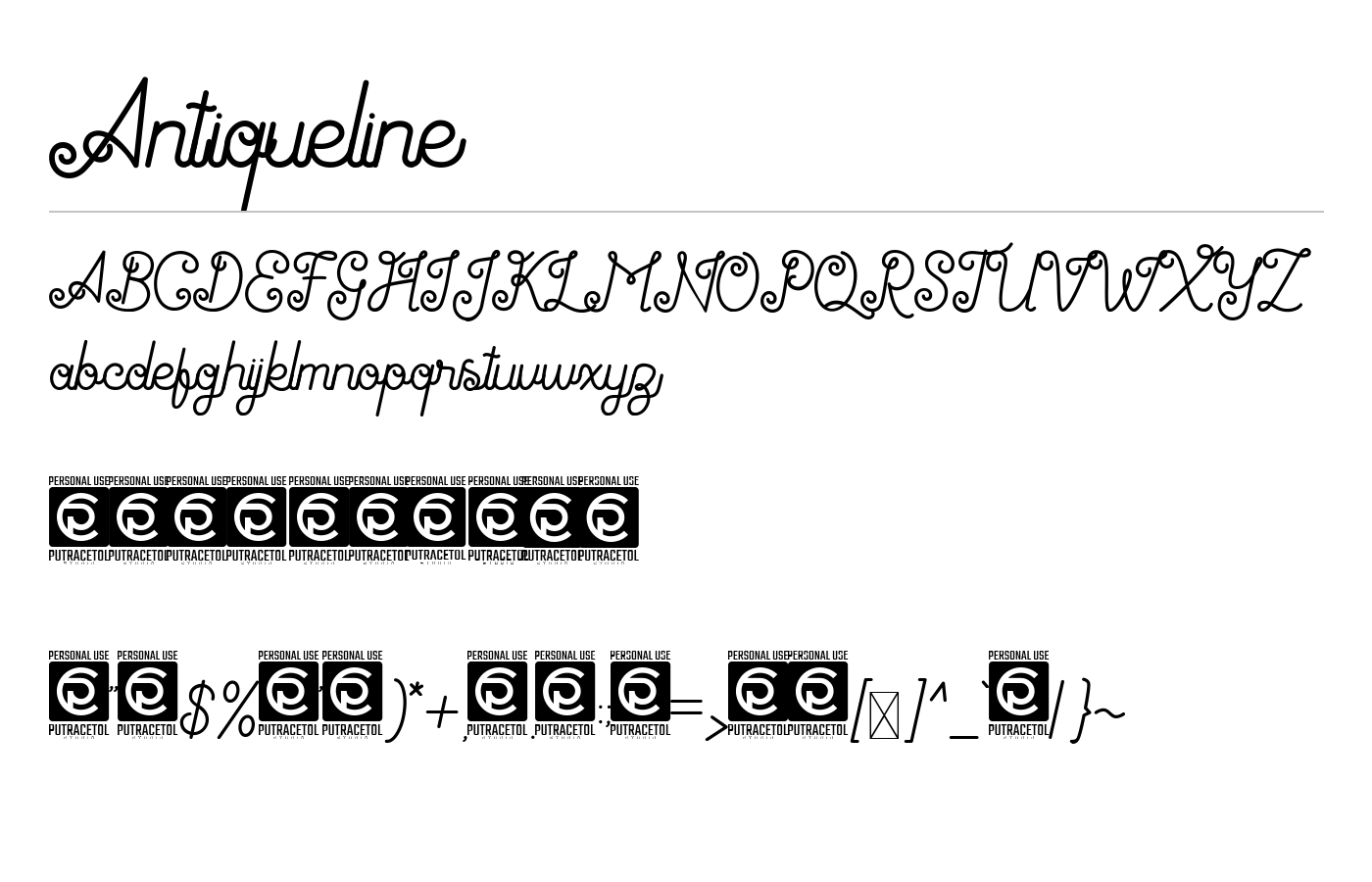
Antiqueline is a playful, decorative script font with thin, elegant strokes and unique swirled embellishments that give it a vintage, handcrafted feel. Its smooth, flowing letterforms and distinct uppercase curls make it perfect for creative projects like invitations, boutique branding, and artistic logos that seek a charming, nostalgic touch. This font works best in larger sizes where its intricate details can shine and add personality to your design.
Antiqueline Font
About Antiqueline Font
| Font family | Antiqueline Font |